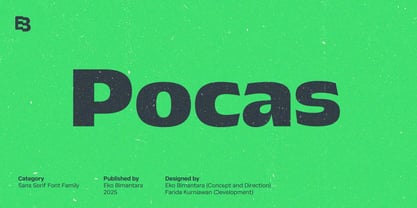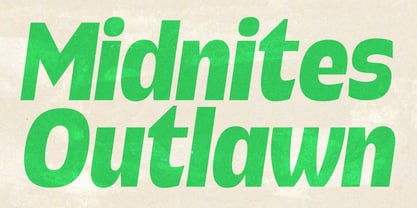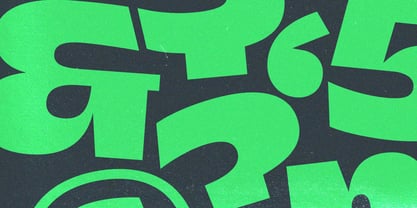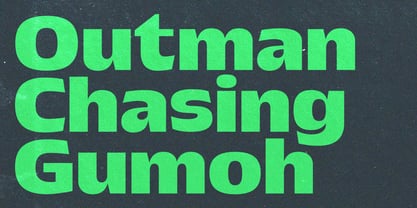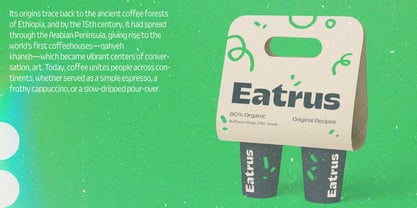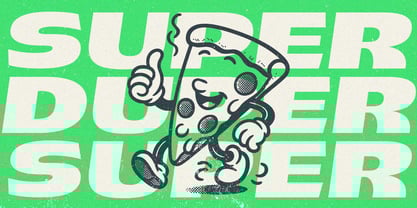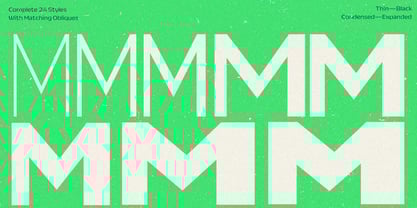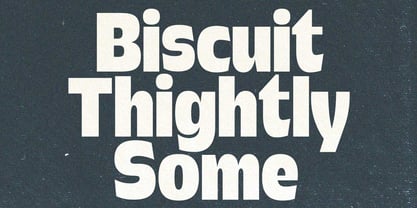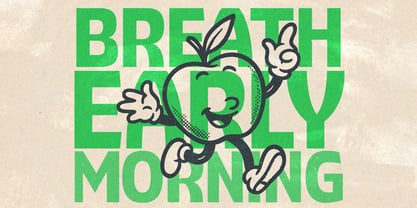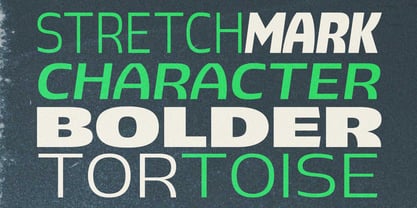
Pocas
by Eko Bimantara
The Pocas Font Family was designed by Eko Bimantara, Farida Kurniawan and published by Eko Bimantara. Pocas contains 50 styles and family package options. More about this family
Pocas is a large and expressive sans serif font family designed to offer both versatility and character across a wide range of design applications. Comprising 48 distinct styles—spanning weights from Thin to Black and widths from Condensed to Expanded, each with matching obliques—Pocas provides a robust typographic toolkit for designers seeking flexibility without compromising visual identity. Its unique character lies in its medium contrast and subtle humanist influences. While Pocas excels in display settings thanks to its bold presence and stylistic range, it is also suitable for short text applications where personality and clarity are equally important. Ideal for retro and 70s-inspired themes, the font brings nostalgic charm with a modern polish, making it a perfect fit for branding, logos, websites, editorial layouts, packaging, and a wide array of creative and commercial design uses.
Designers: Eko Bimantara, Farida Kurniawan
Foundry: Eko Bimantara